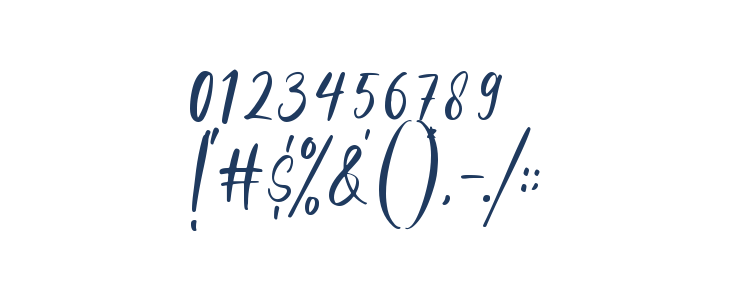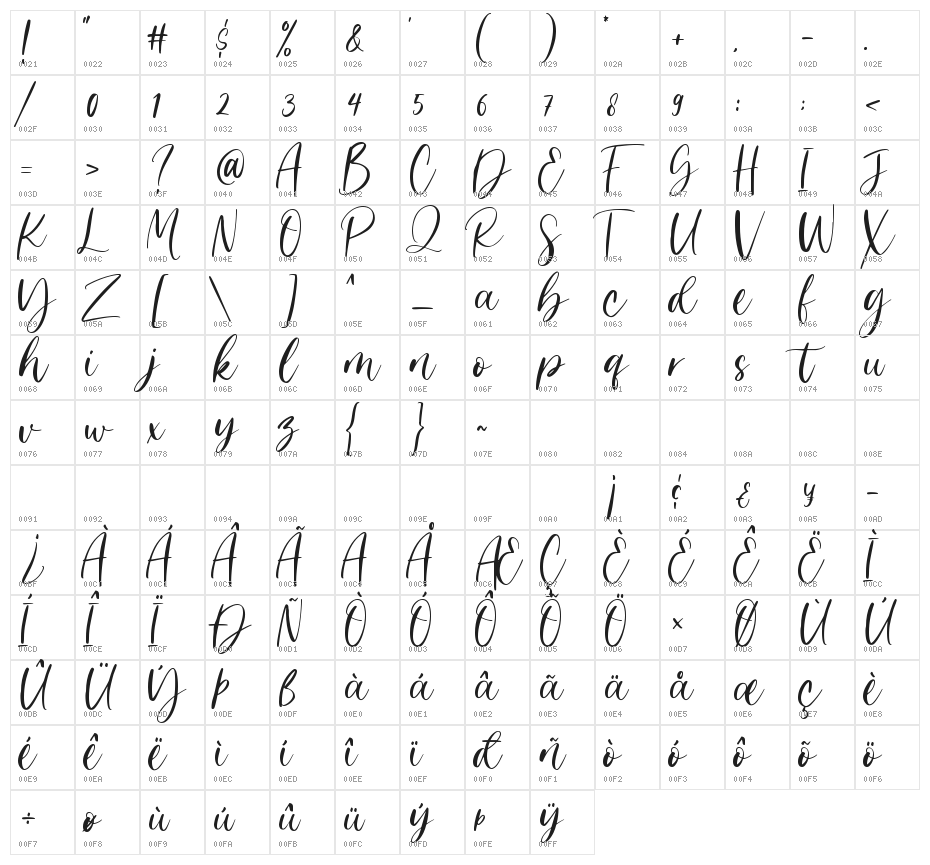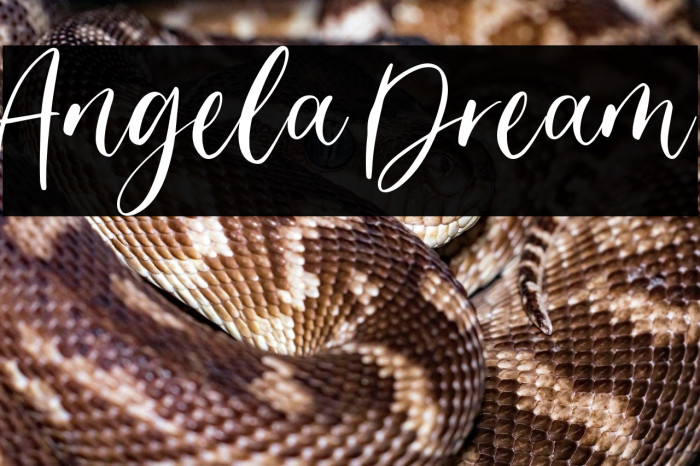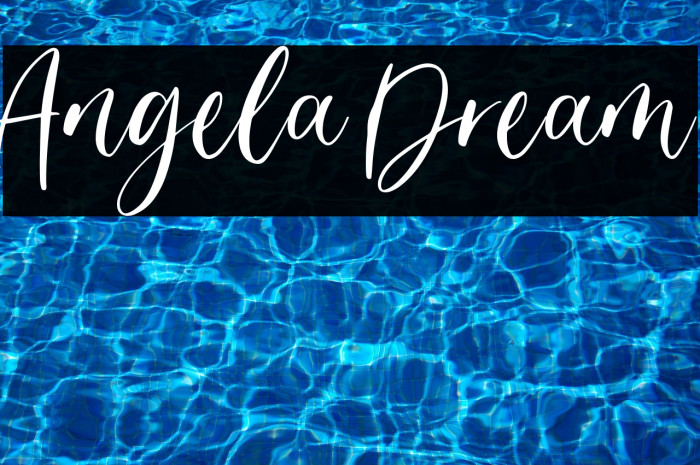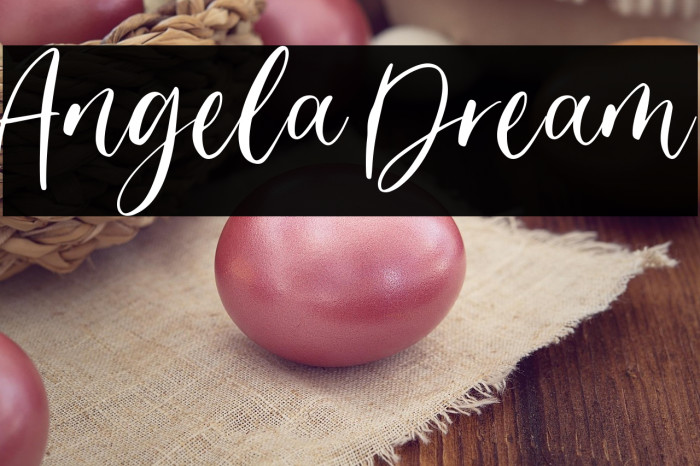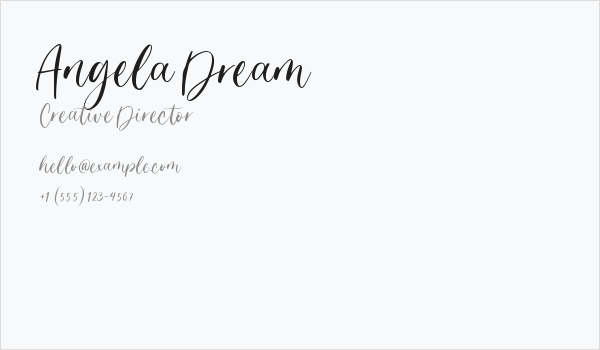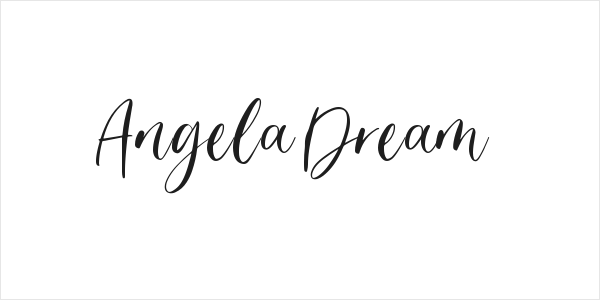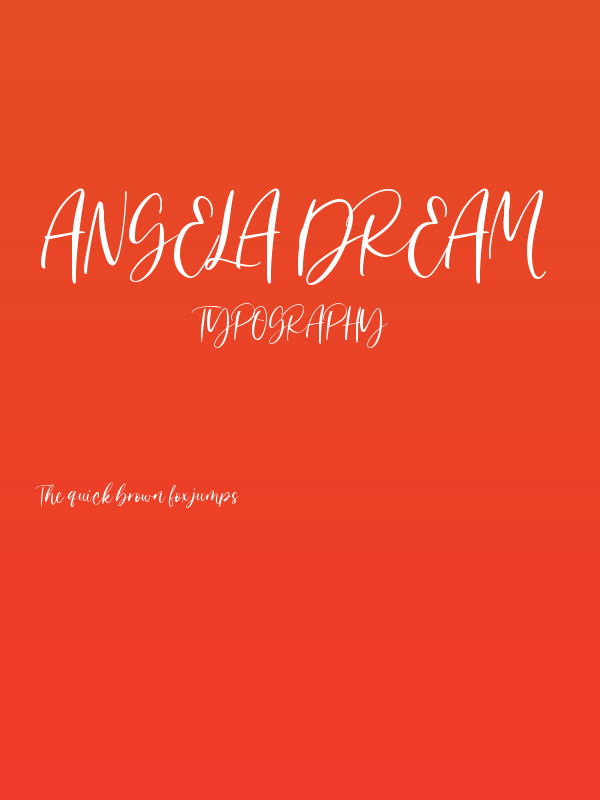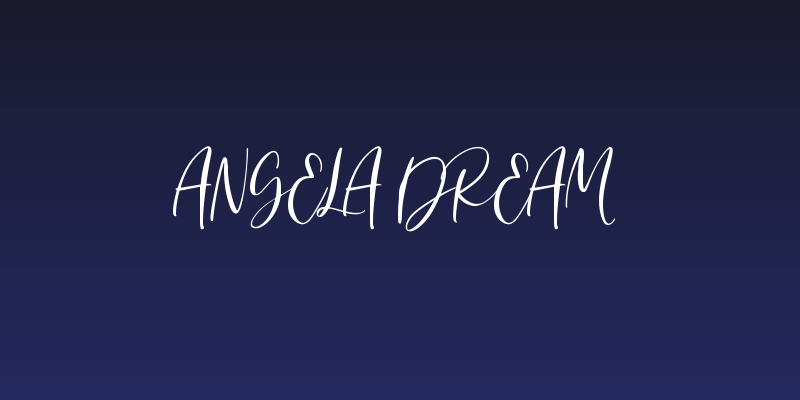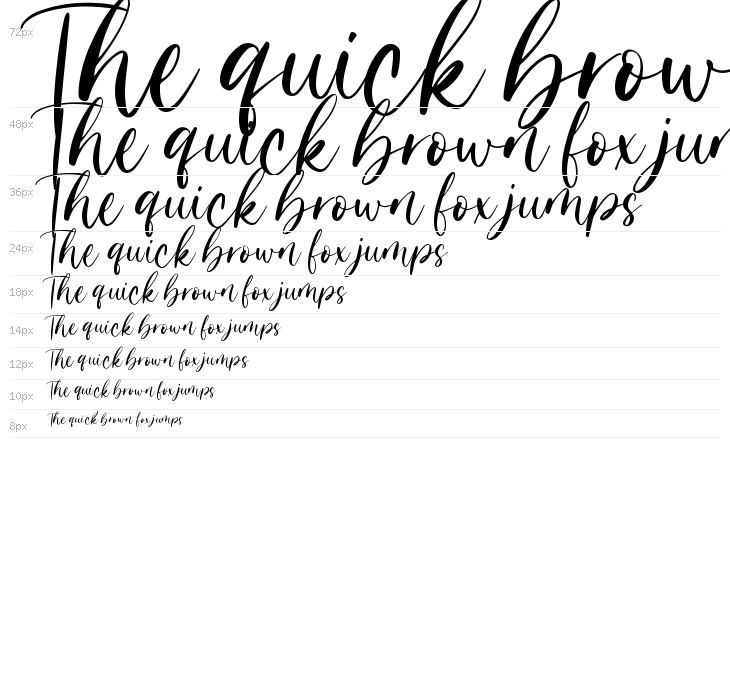
Angela Dream Font
Angela Dream Description
This font features a flowing, cursive style with elegant, sweeping strokes that convey a sense of grace and fluidity. The uppercase letters are tall and slender, with distinctive loops and flourishes that add a touch of sophistication. The lowercase letters maintain a consistent rhythm, with smooth connections between characters, enhancing readability while retaining an artistic flair. Numbers and special characters are designed with the same attention to detail, ensuring a cohesive look across all elements. The overall appearance is both modern and timeless, making it suitable for a variety of design applications.
| Overall Style | Elegant, Artistic |
| Proposed Projects | Ideal for wedding invitations, greeting cards, branding, and elegant packaging designs. |